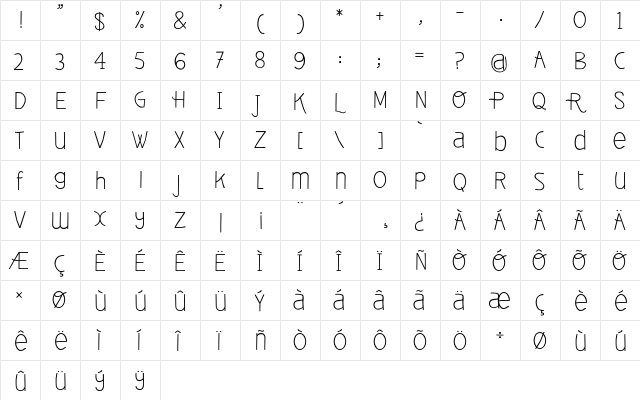
Deibi Regular
Design Context for Deibi Typeface
Deibi offers clean, dependable letterforms without strong stylistic allegiance, making it a practical choice for designers who need flexibility.